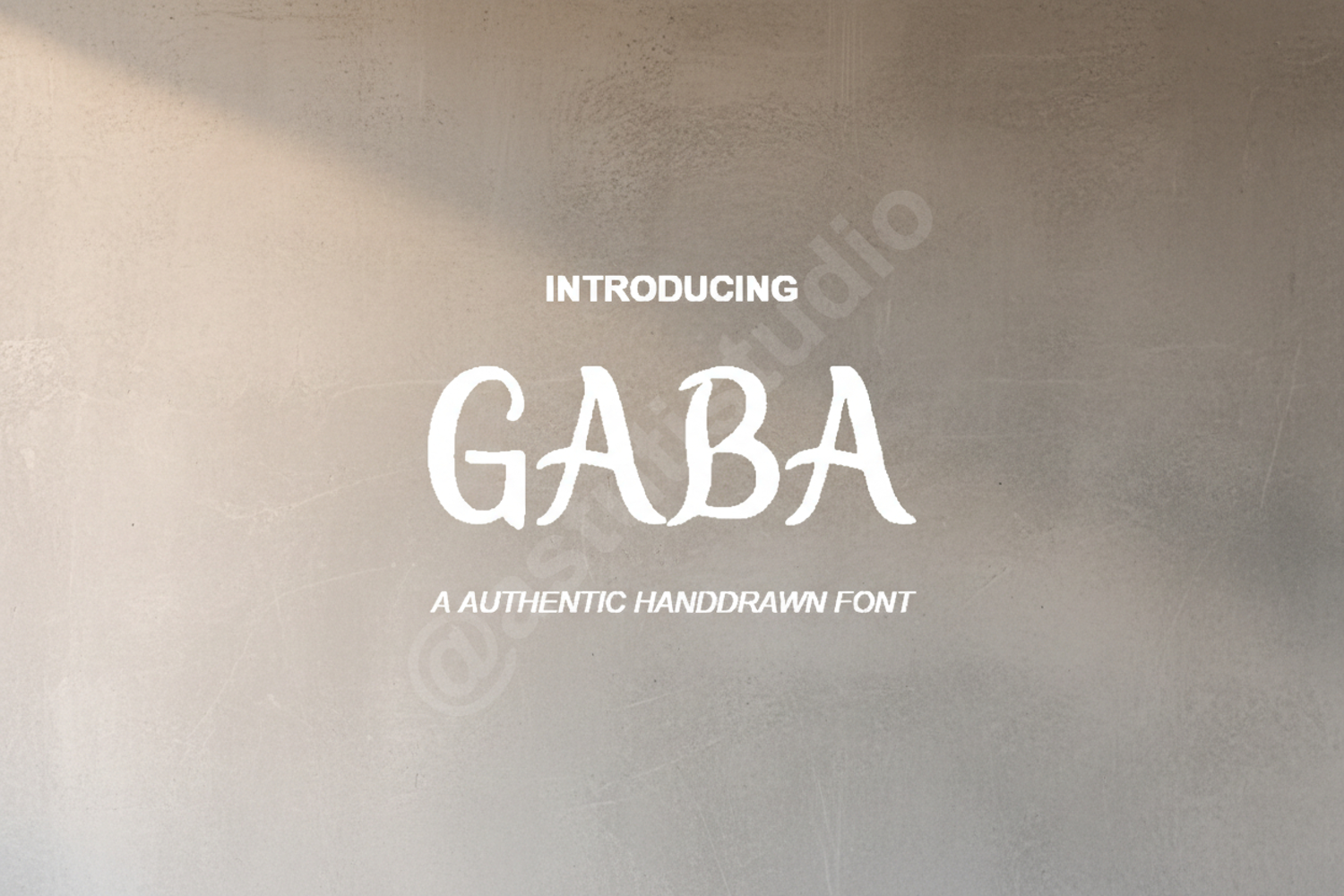
Gaba - Modern Geometric Sans Serif Typeface
Gaba
Gaba is a premium geometric sans serif font meticulously crafted for designers who demand clarity, impact, and modern aesthetics. Featuring clean lines and perfectly balanced proportions, Gaba provides a sophisticated foundation for any creative project, ensuring your message is delivered with professional elegance.
- Corporate Branding and Identity Systems: Create a trustworthy and modern brand presence.
- Minimalist Logo Design: Perfect for sleek, contemporary wordmarks.
- Editorial Layouts: Ideal for high-end magazines and professional reports.
- Web Design and UI: Optimized for legibility across all digital screens.
- Social Media Graphics: Make your headlines stand out with bold, clean typography.
- Print Advertising: High-impact clarity for posters, brochures, and stationery.